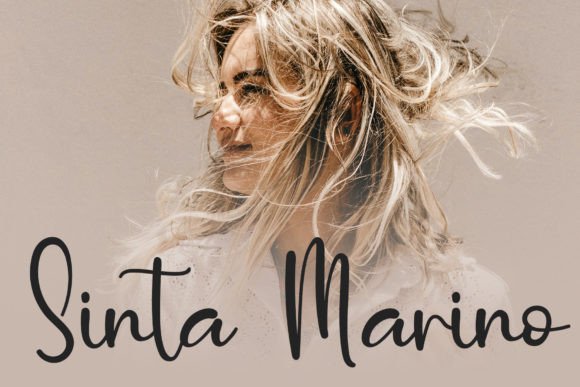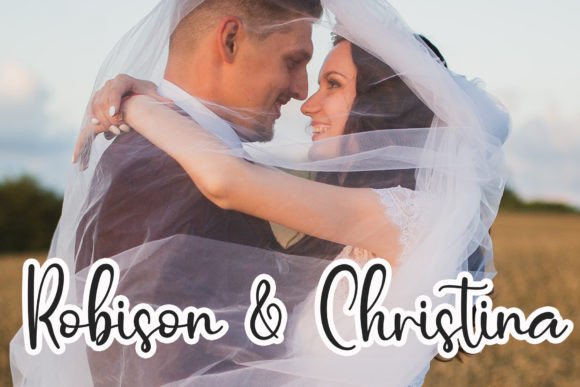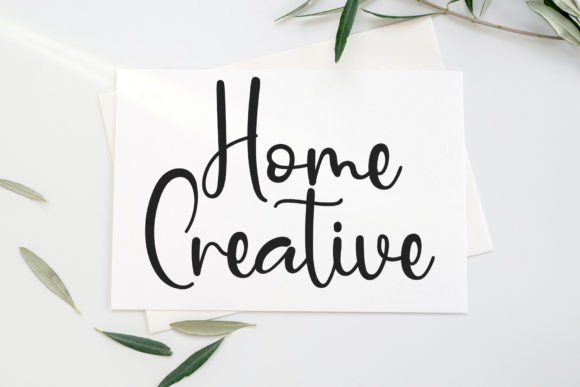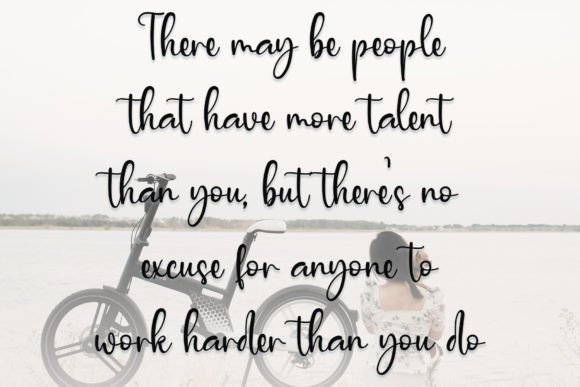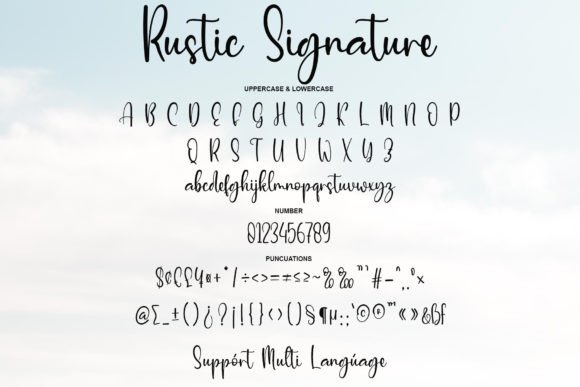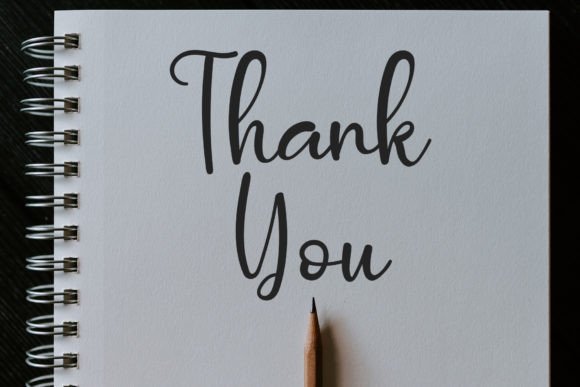
Introduction to Rustic Nature Font Font
Fonts play a crucial role in design, and the Rustic Nature Font font is a typeface that brings both character and versatility to any project. Whether you’re working on a branding project, a website, or a print design, the Rustic Nature Font font offers a unique style that can elevate your work.
| π€ Author | Bintang Studio |
Rustic Nature is a signature font thatβs easy to read, and simple, but still with that handwritten feel.
Features alternates and two sets of lowercase, uppercase, punctuation, and numbers Itβs perfect for greeting cards, magazines, headers, social media, and more.
Key Features of Rustic Nature Font Font
Why Choose Rustic Nature Font Font?
The Rustic Nature Font font is more than just a typeface β it’s a design tool that helps you communicate your message with style and clarity. Its unique character set and versatile design make it suitable for a wide range of applications, from elegant invitations to bold headlines.
With its carefully crafted letterforms and balanced proportions, the Rustic Nature Font font ensures readability and visual appeal across all mediums.
What makes Rustic Nature Font font special?
The Rustic Nature Font font stands out with its unique design, exceptional readability, and versatility across various design applications.